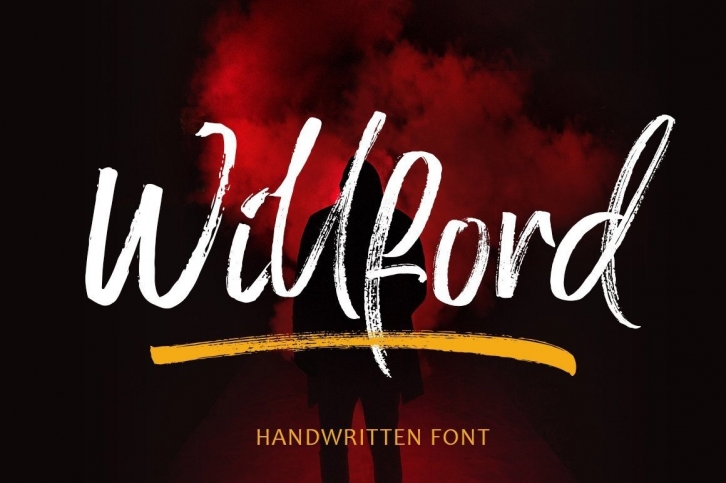
Willford is a modern, freestyle, free-flowing, friendly, and organic brush script font. It can be used for Branding, Posters, Logos, Greeting Cards, Wedding Stationery, and Quotes.